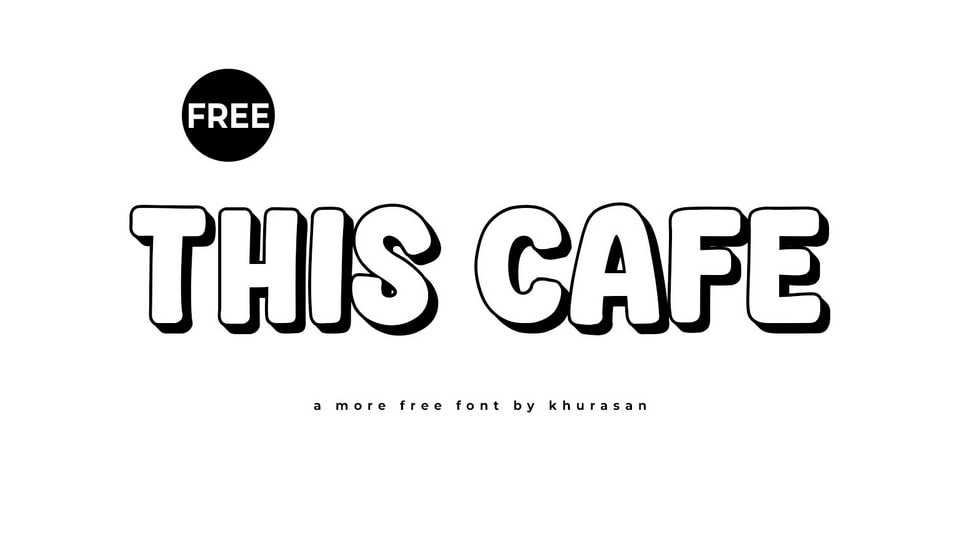
Download This Cafe font, a bold and friendly hand-crafted cartoon typeface with a playful shadow effect. It features thick, rounded letterforms that exude warmth and approachability, while the fun shadow detail adds depth and dimension.